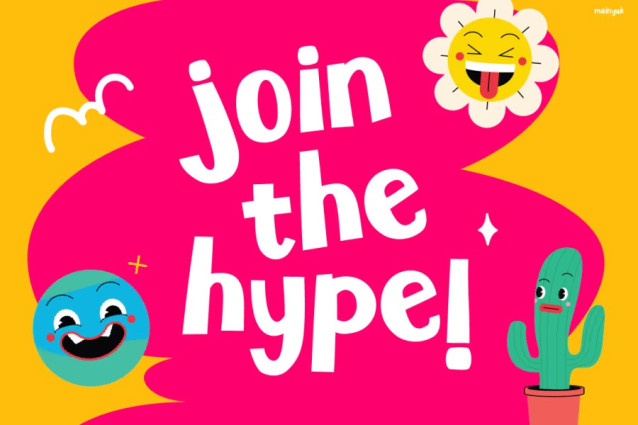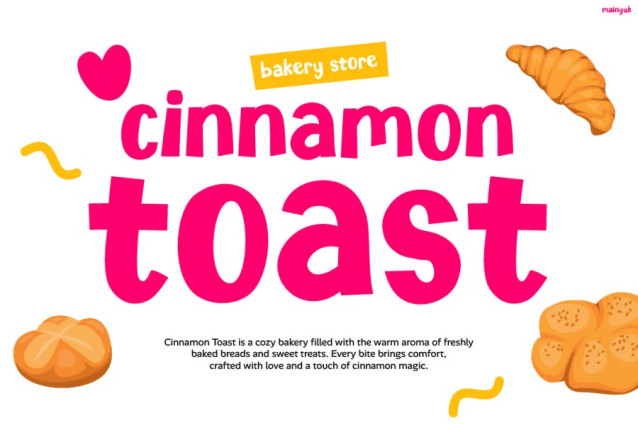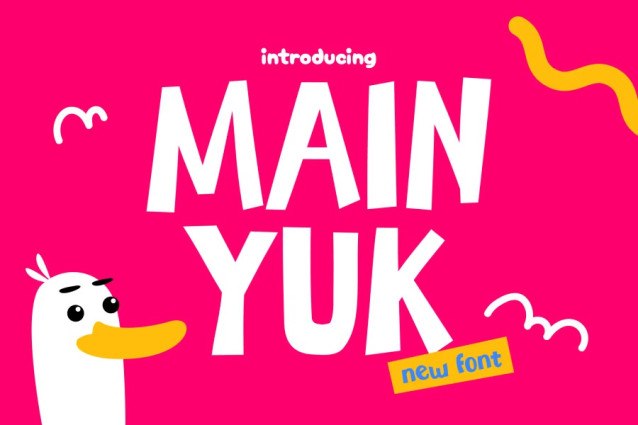
Mainyuk Font was crafted with balance and precision, ensuring readability while maintaining that fun, quirky touch. Because of its cheerful rhythm, your designs will instantly look more approachable and full of life. In addition, this font adapts beautifully across different mediaâfrom packaging design to posters and digital graphicsâmaking it a true all-rounder for creative projects.
If you love designs that radiate happiness, then Mainyuk is definitely for you. This font was created for branding designers, illustrators, content creators, and small business owners who want to communicate fun and friendliness through their visuals. Moreover, itâs ideal for kidsâ brands, daycare centers, bakeries, and toy packagingâany place where imagination and joy meet.
While it looks playful, it remains professional enough to use for marketing materials or social media graphics. Therefore, it works wonderfully for Instagram quotes, creative ads, event posters, and modern logos. Instead of using a typical font, choose Mainyuk to add personality and emotion to your message.
Above all, Instagram Font Mainyuk makes your words come alive. Its friendly shapes, combined with its modern vibe, create a perfect blend of professionalism and fun. Besides, it helps your brand feel genuine, expressive, and instantly recognizable. So, whether youâre creating packaging for a snack brand or crafting your next Instagram campaign, Mainyuk ensures that your designs stand out and leave a lasting impression.